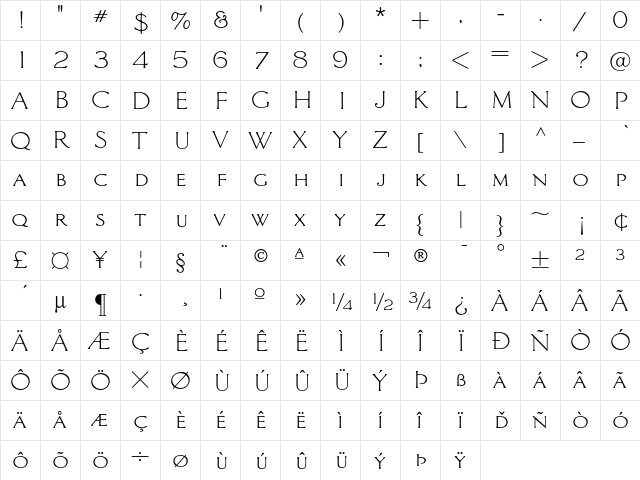
ArchitectVarityper Regular
Design Context for ArchitectVarityper Typeface
ArchitectVarityper takes a measured approach to typography — its balanced proportions and neutral character make it a reliable workhorse for both digital and print work.